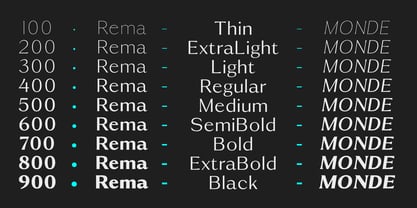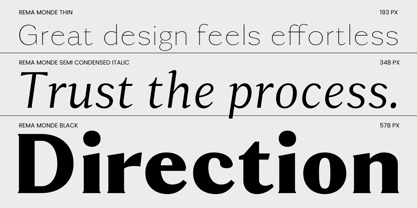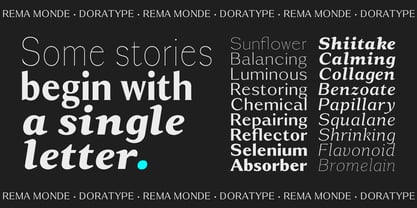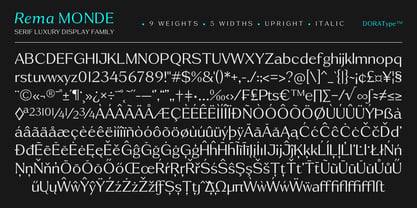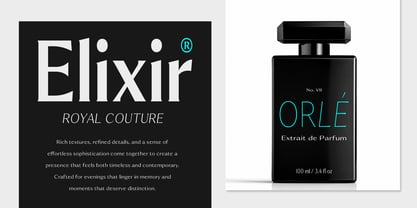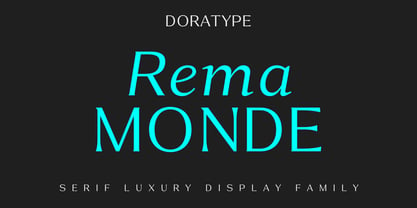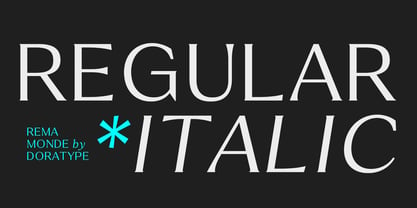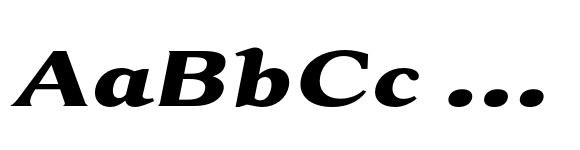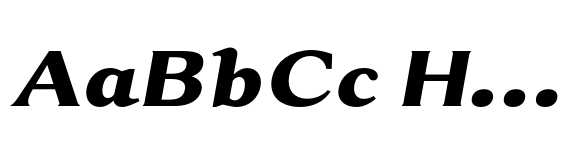
Rema Monde
by Dora Typefoundry
The Rema Monde Font Family was designed by Zahratul Laila and published by Dora Typefoundry. Rema Monde contains 90 styles and family package options. More about this family
Rema Monde is a display serif font that offers the perfect blend of classic elegance and modern aesthetics. With its subtle contrast, elegant proportions, and luxurious serif details, the font lends an air of exclusivity, professionalism, and sophistication to any design.
Designed for premium branding, editorial work, logos, packaging, fashion, and luxury product promotions, Rema Monde creates a bold and distinctive look. Each character is crafted with precision to produce captivating, recognizable typography that establishes an elegant visual identity.
Designers: Zahratul Laila
Foundry: Dora Typefoundry